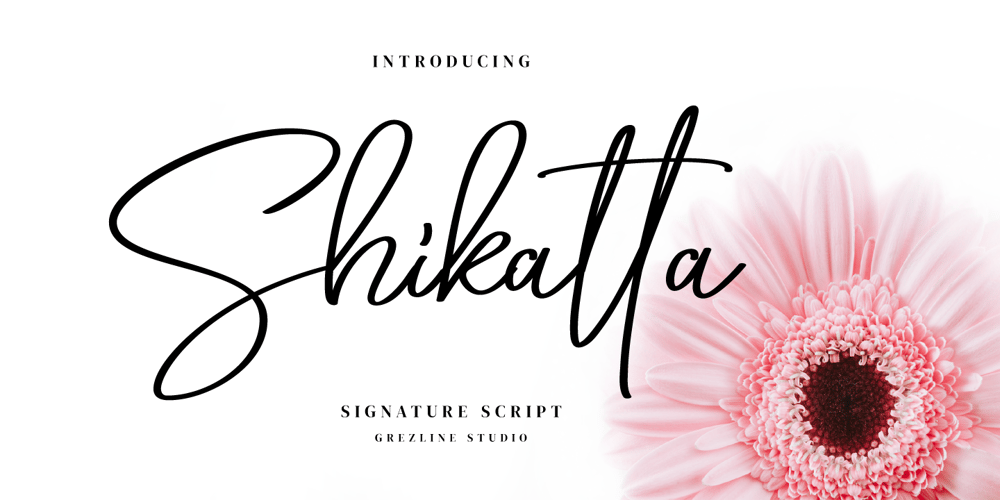
Shikatta
Shikatta Font Family was designed by Akhmad Reza Fauzi and published by Grezline Studio. Shikatta contains 1 styles and family package options. Shikatta is a beauty signature script font crafted very carefully. Shikatta is perfect use for a logo for branding, typography design, product packaging, invitation, quotes, t-shirt design, label poster, special events and anything that need handwriting taste.